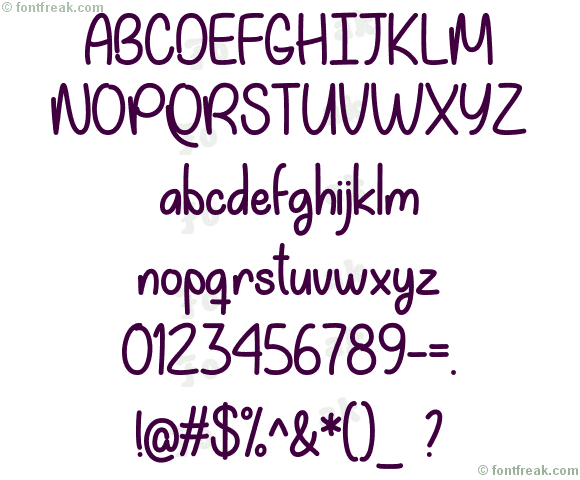
My Happy Ending Regular
About My Happy Ending Regular
My Happy Ending Regular is a charming handwritten font created by Misti Hammers, categorized as a script typeface. This delightful font features playful, flowing strokes that exude warmth and approachability. The stroke weight is consistent throughout, offering a friendly and inviting aesthetic, while the slightly irregular baseline adds a touch of whimsy. The letters are well-spaced, ensuring legibility even in longer texts, making it a versatile choice for various design projects.
This font is particularly well-suited for wedding invitations, where its romantic flair can enhance the overall theme. It also shines on greeting cards, providing a personal touch that can resonate with recipients. Additionally, My Happy Ending Regular is perfect for restaurant menus, where its casual style can create a welcoming atmosphere that encourages customers to explore the offerings. Content creators will find it effective for social media graphics and blog headers, as it captures attention while maintaining readability.
What sets My Happy Ending Regular apart is its unique ability to blend playfulness with sophistication. The font's inviting character makes it versatile for both formal and informal contexts, allowing it to adapt to various themes and audiences. Whether you’re designing a heartfelt card or a vibrant menu, My Happy Ending Regular font free download provides the perfect finishing touch that captures the essence of happiness and charm in every letter.